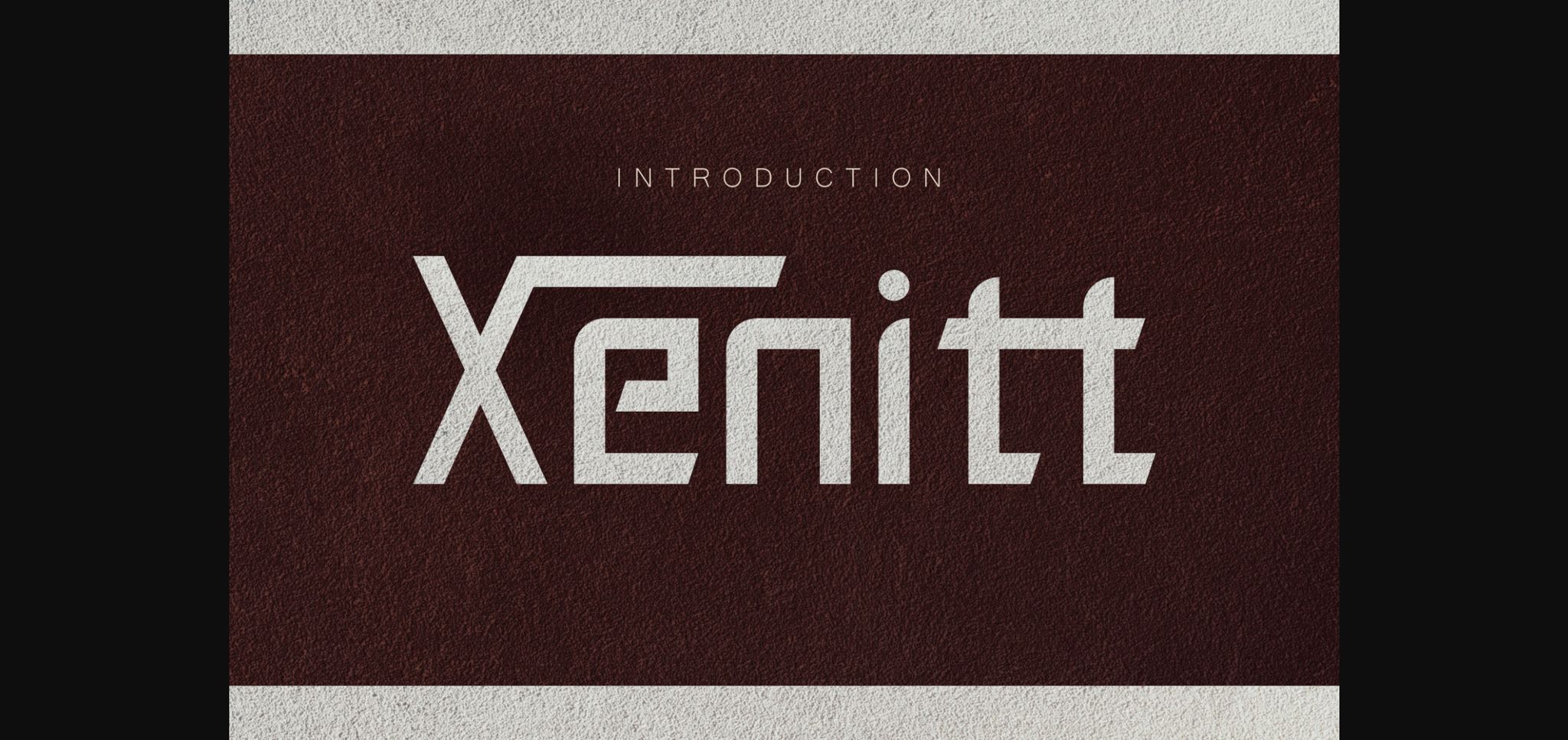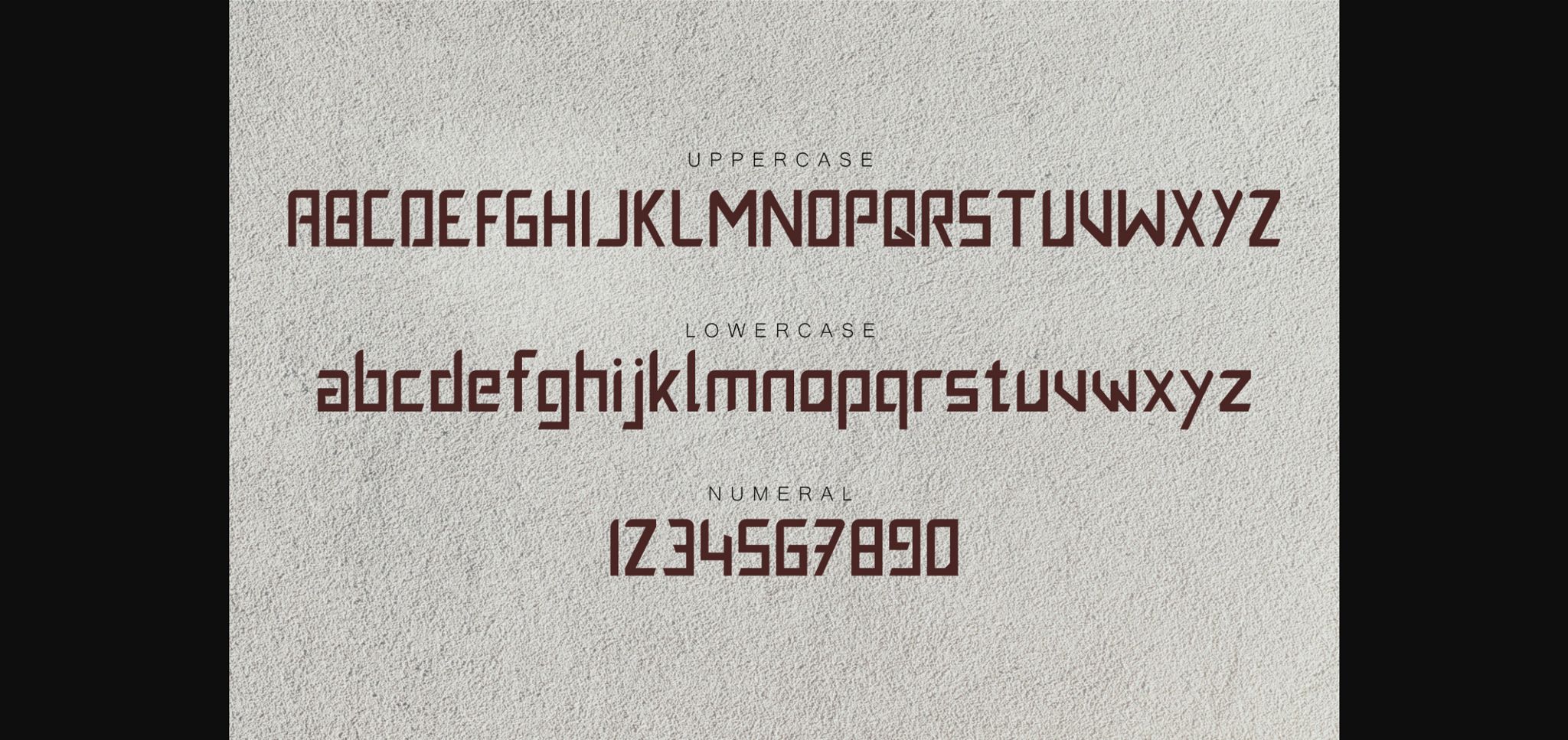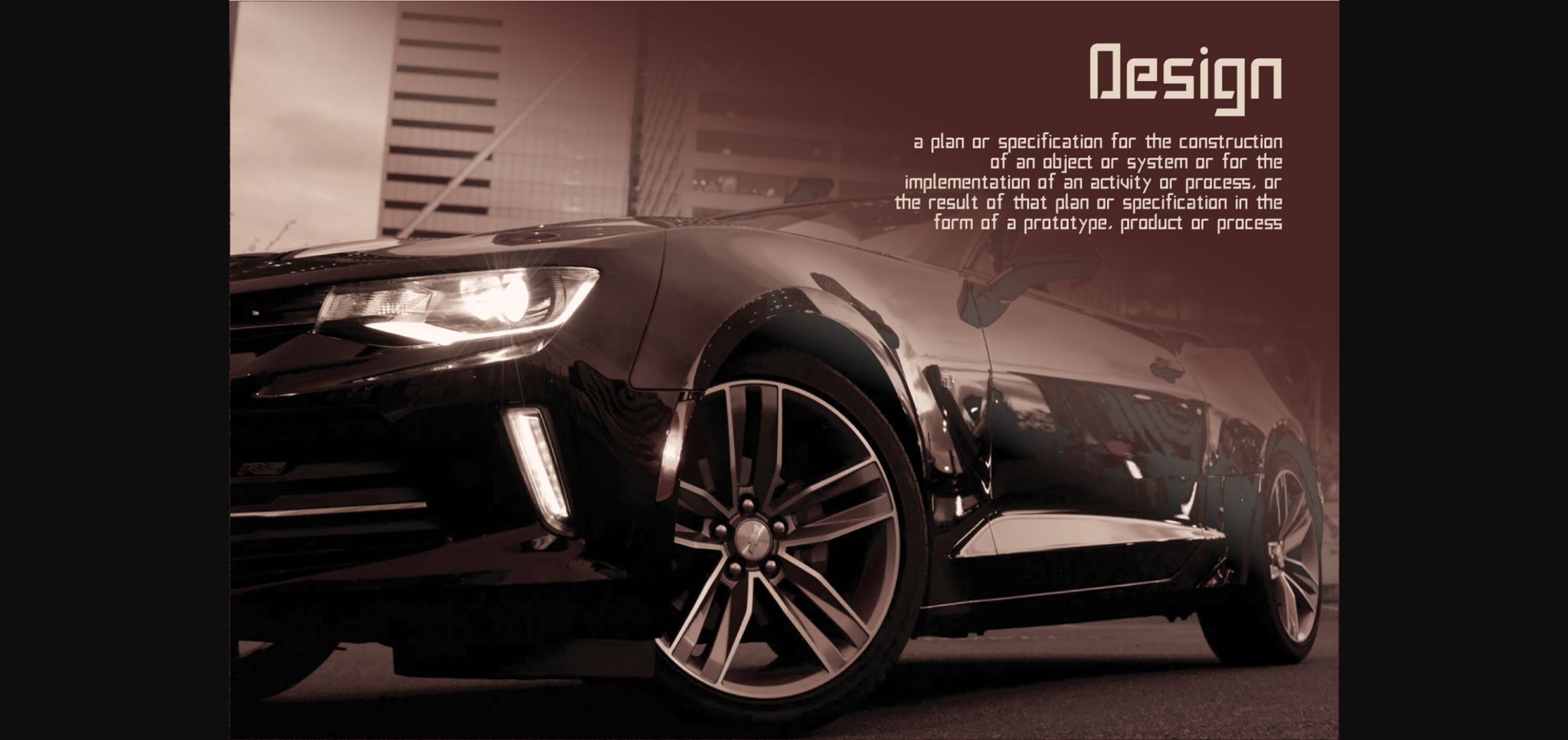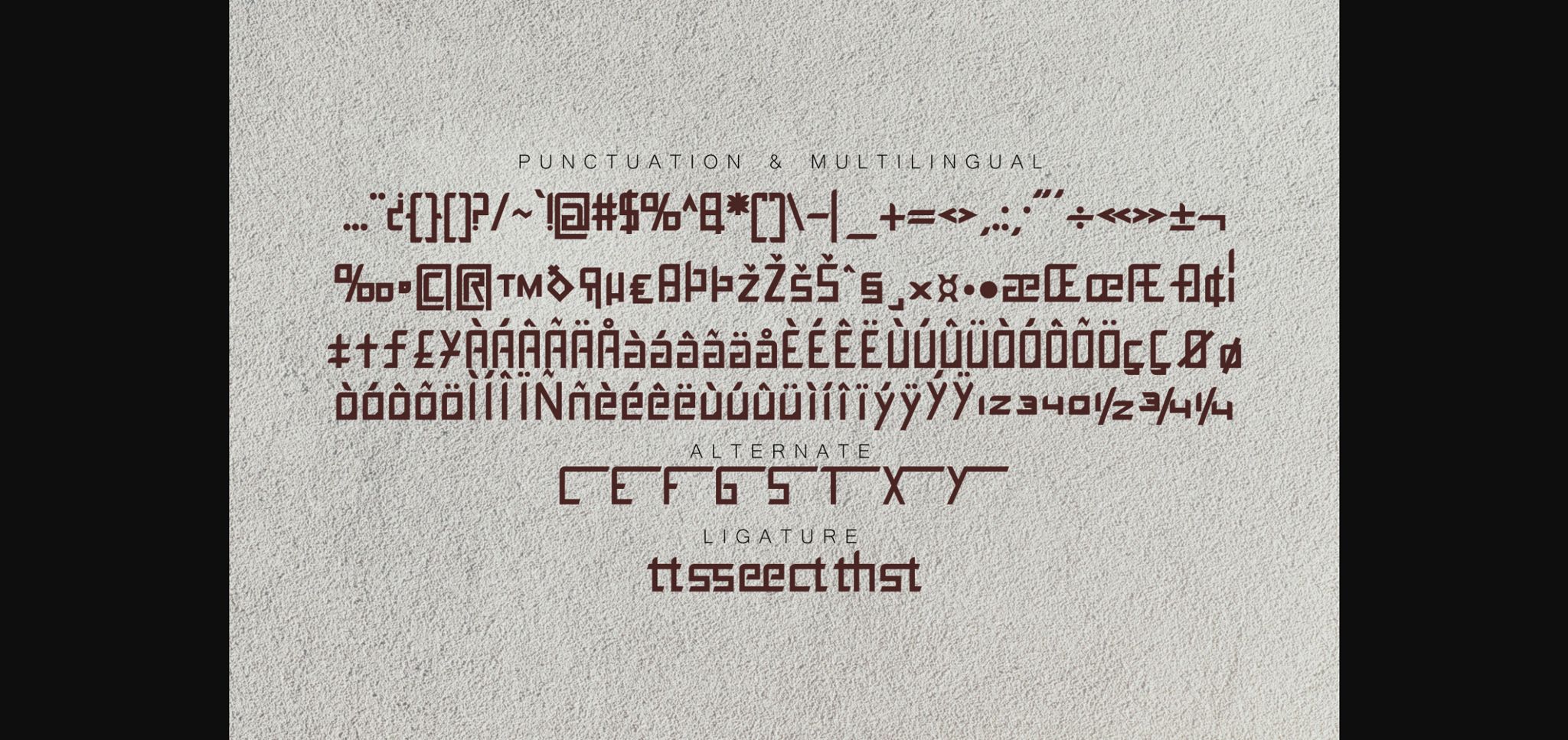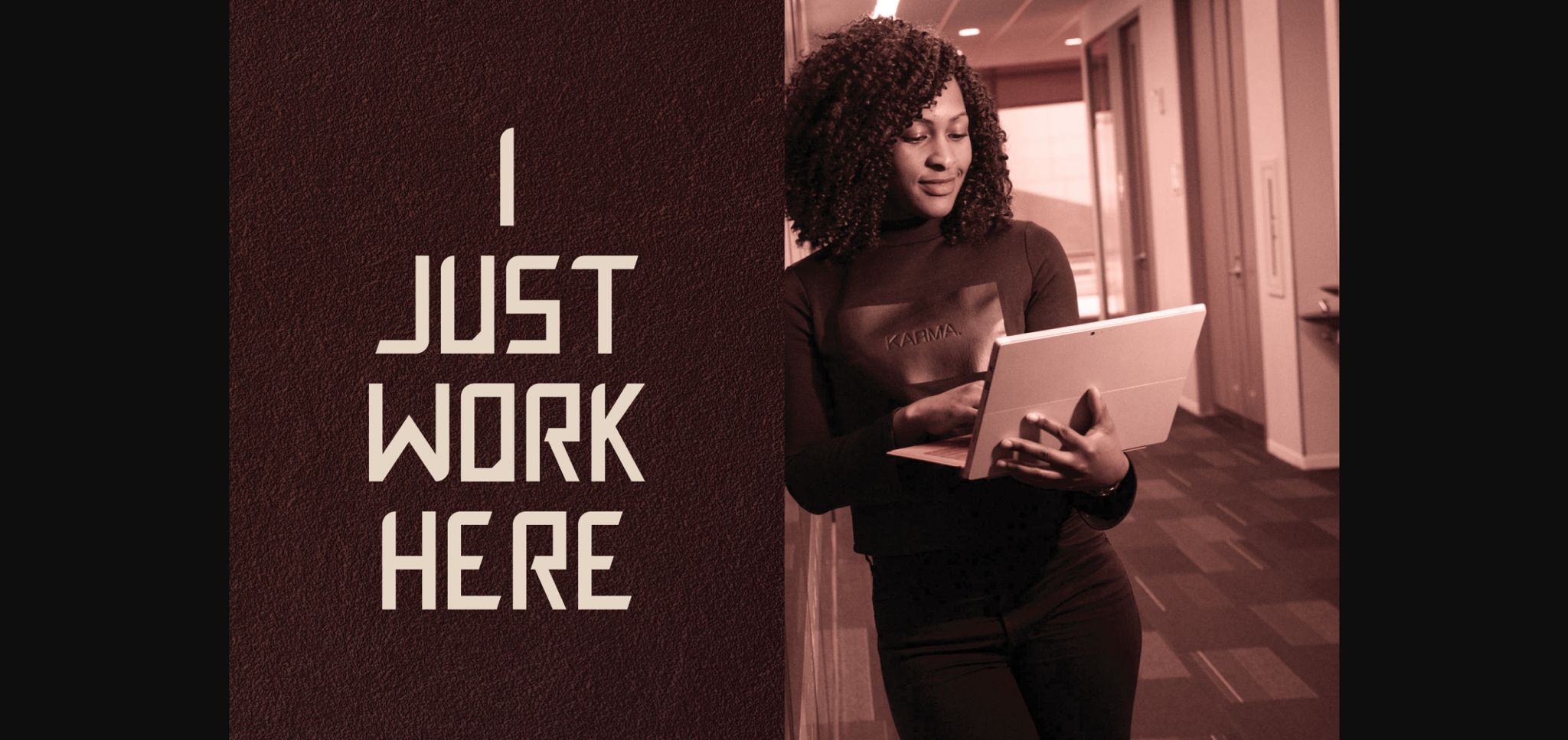
HomeSans Serif FontsXenitt Font Sans Serif Fonts Xenitt Font FacebookXPinterestWhatsApp 1 of 8 ... Xenitt Font Poster 2... Xenitt Font Poster 3... Xenitt Font Poster 4... Xenitt Font Poster 5... Xenitt Font Poster 6... Xenitt Font Poster 7... Xenitt Font Poster 8... About Xenitt Font Xenitt is a modern sans serif with solid letters. Use it for any design project that requires a personalized appearance! DOWNLOAD NOW People also explored Blackisot Font Panther Hunter Font Heartbeat Lover Font Spooky Vintage Font Antona Squirty Quick Love Font Rasterize Font Village Font 326 0 TagsXenittXenitt Font Previous articleFatjisti FontNext articleManisans Font LEAVE A REPLY Cancel reply Comment: Please enter your comment! Name:* Please enter your name here Email:* You have entered an incorrect email address! Please enter your email address here Website: Save my name, email, and website in this browser for the next time I comment. Personal Use Free Gonestones Personal Use Free Read more about this font Bellarin Personal Use Free Read more about this font Rina Personal Use Free Read more about this font Stereofidelic Personal Use Free Read more about this font BLOG The 10 Best Handwriting Fonts to Add Personality to Your Designs 10 of the Best Handwriting Fonts for Adding Personality to Your Designs There will undoubtedly be no other better choice than handwriting fonts to give... Free Fonts Risk: Why Free Fonts Can Be Dangerous for Designers Exploring Font Trends How to Cut Any Font on Cricut: Convert a Font to SVG (Free)